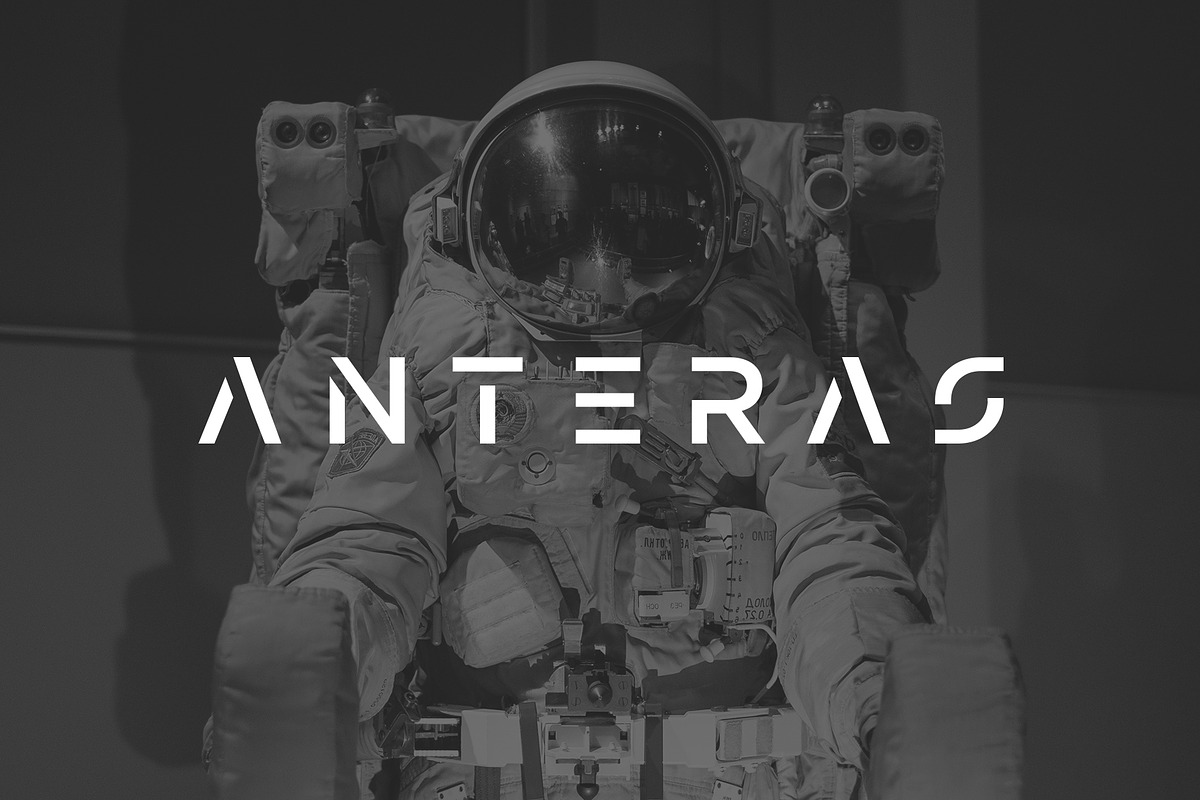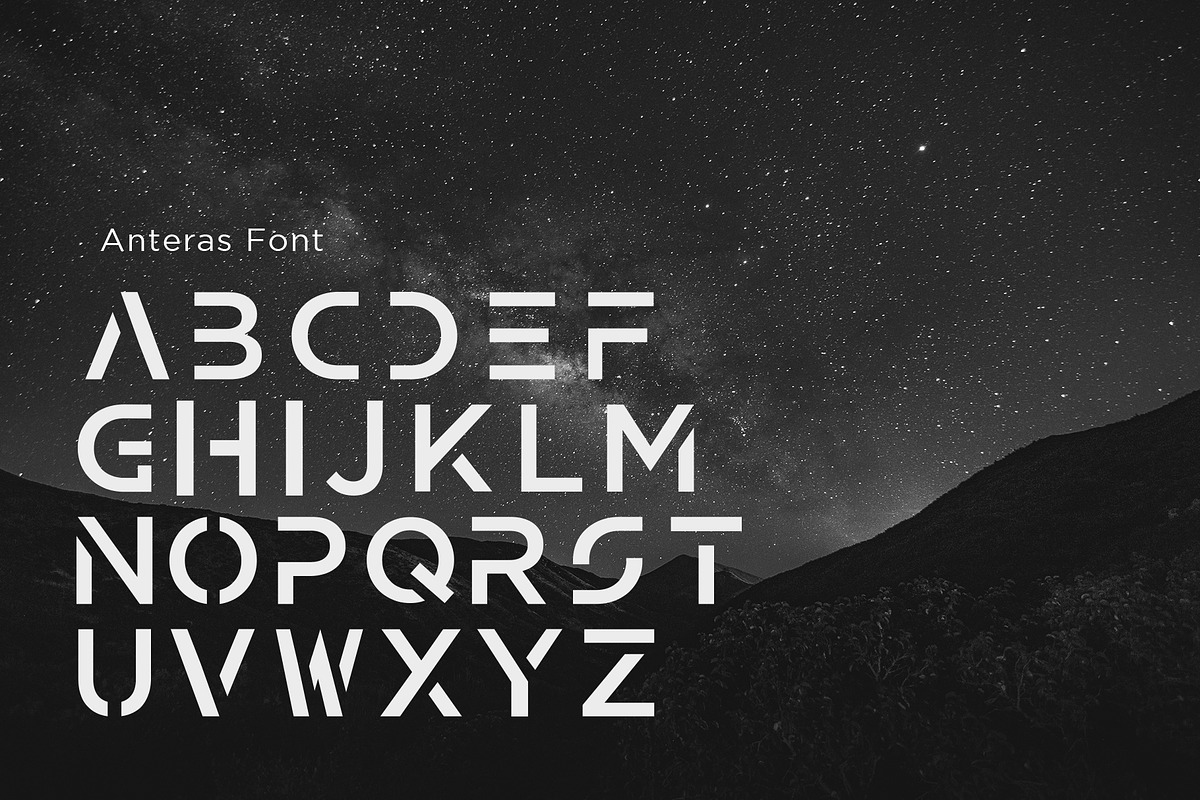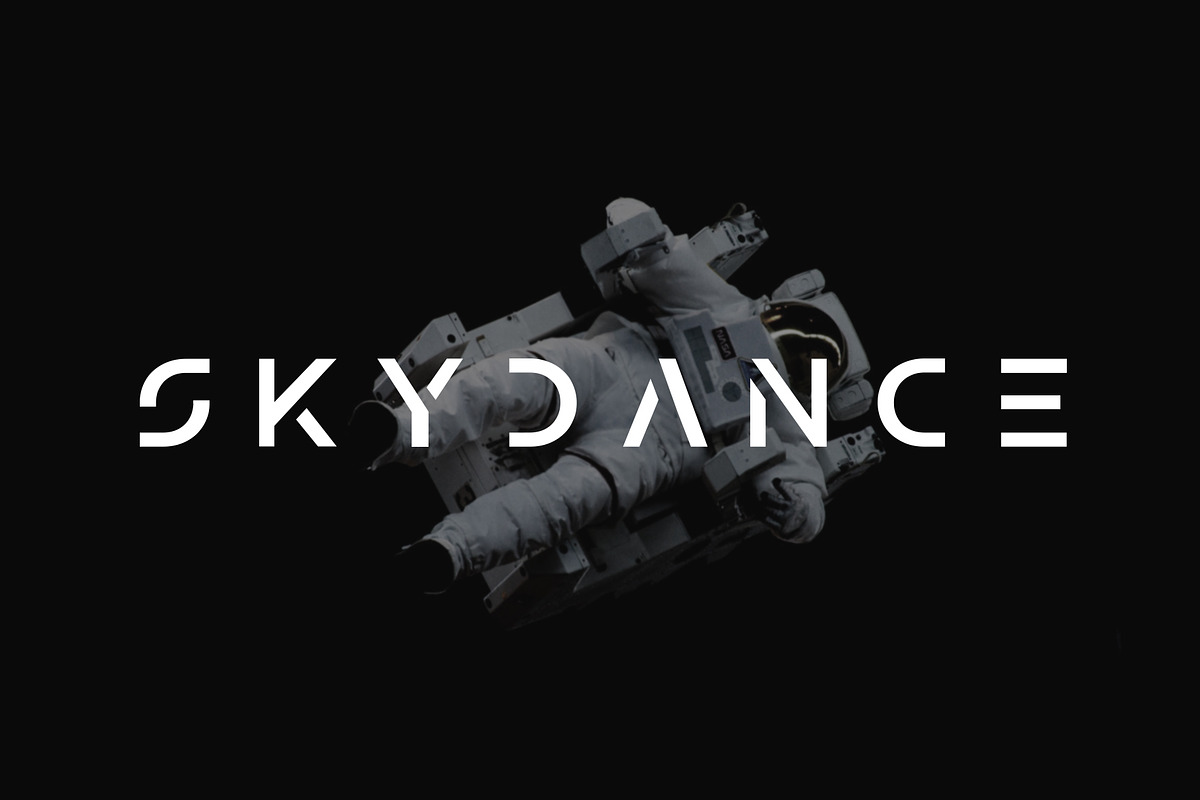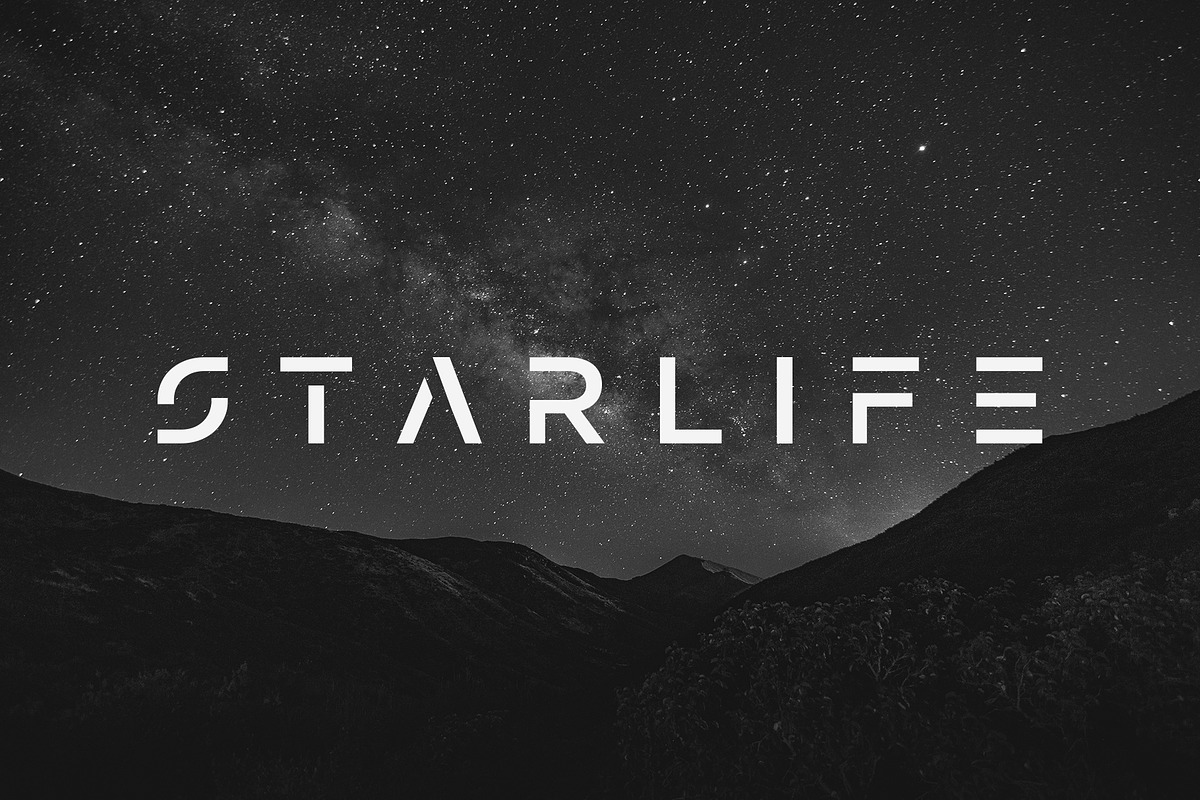
Anteras Font
Anteras : unique modern typeface.
Why Anteras Font is worth a look
Anteras Font by Creativeadi fits naturally into Branding, posters, packaging, typography.